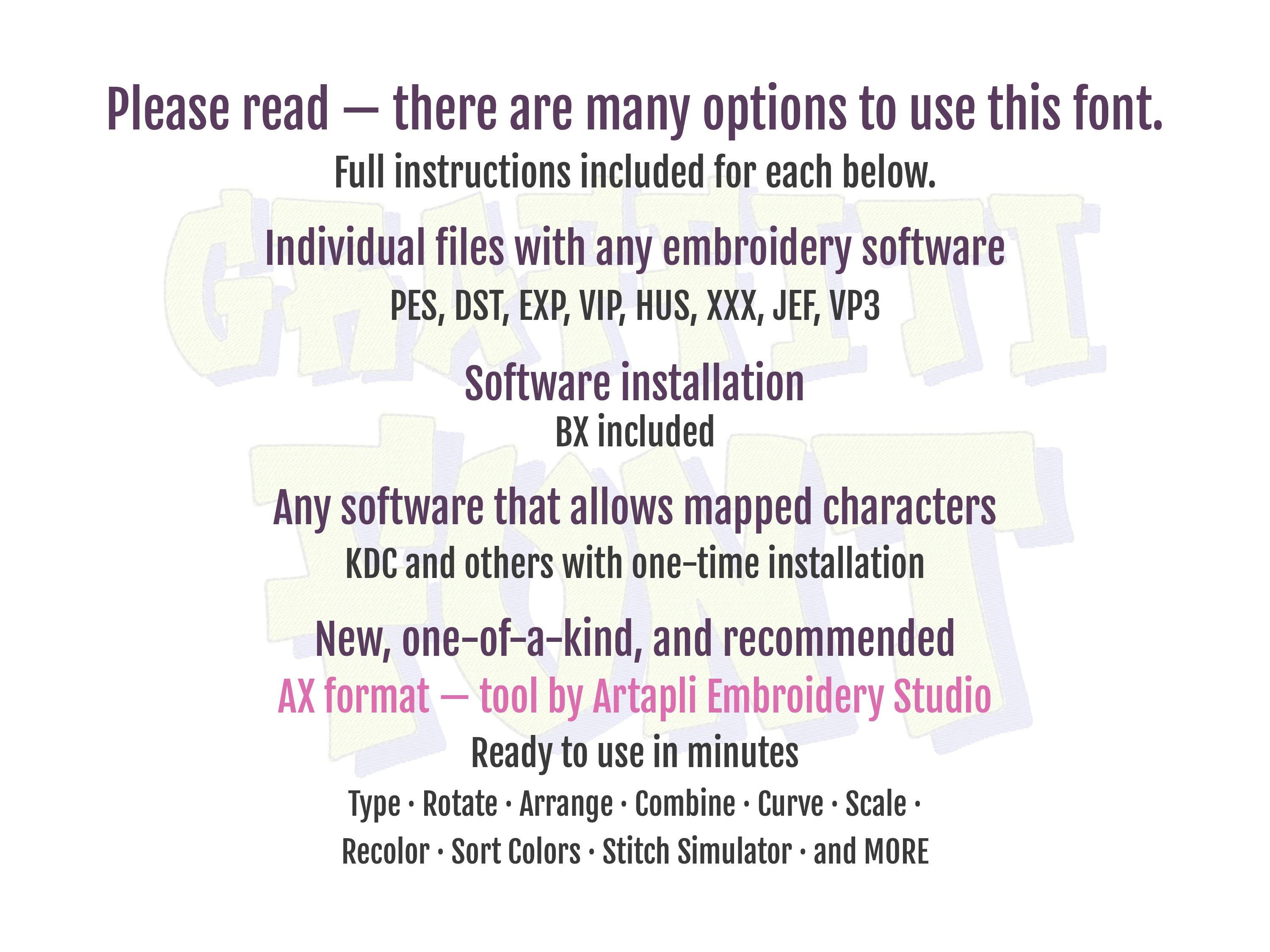
Graffiti Street Art FONT Shadow Monogram shadowed alphabet fill stitch letters kids boys machine embroidery designs sizes 1.2 up to 3.7 inch
Whole alphabet uppercase letters A-Z, numbers 0-9, and punctuation